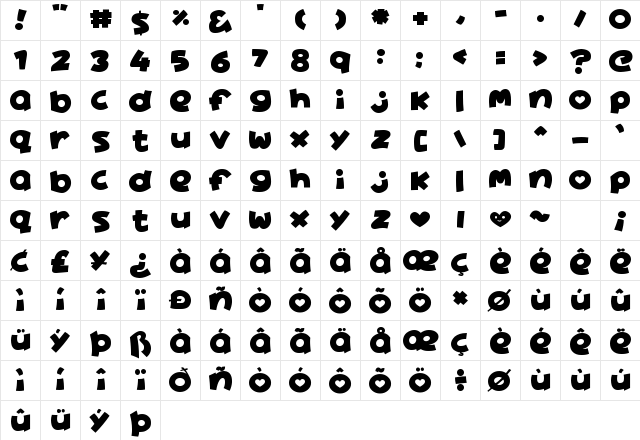
Lovely Cute Regular Free Font
Lovely Cute Regular
Design Context for Lovely Cute
Lovely Cute is a composed and adaptable typeface that performs quietly and consistently across a wide range of design contexts.